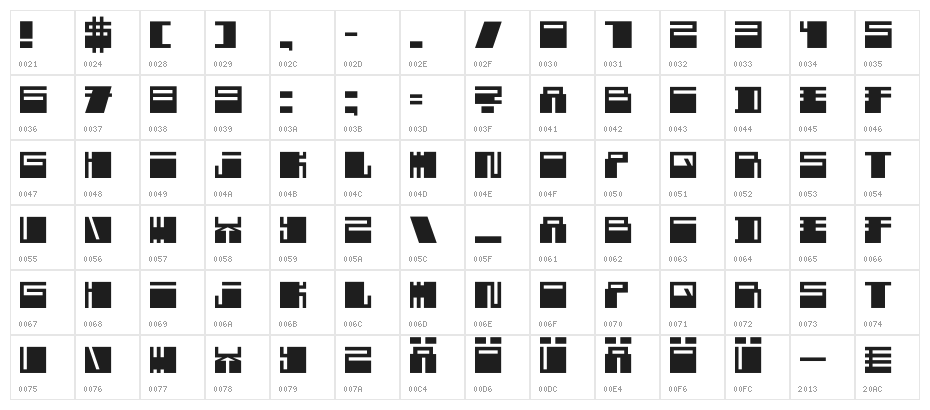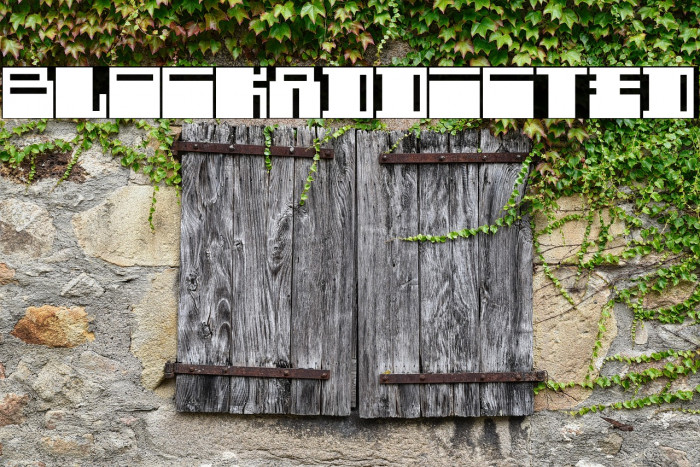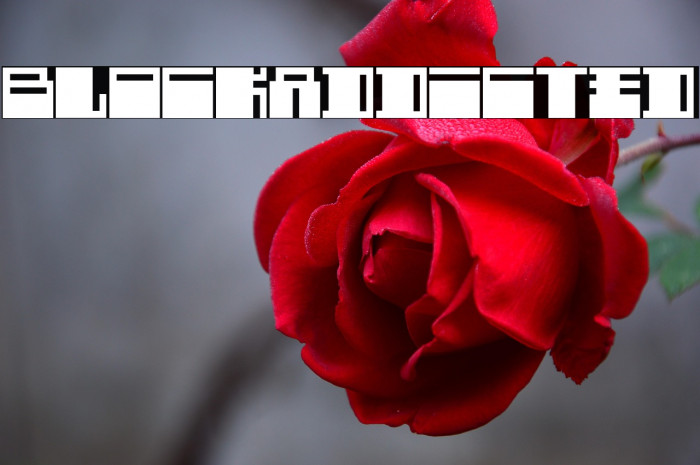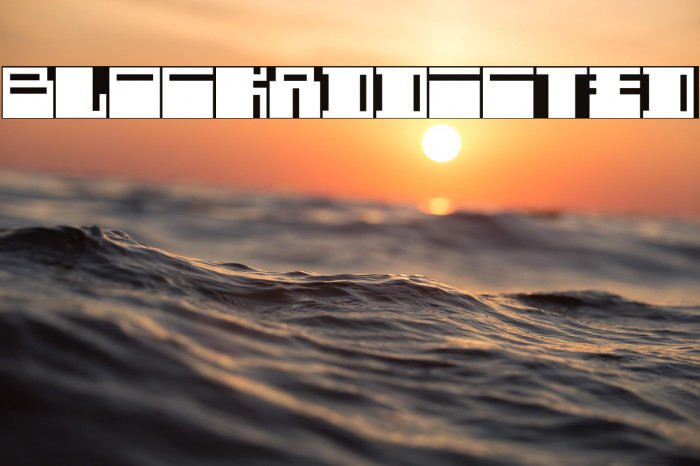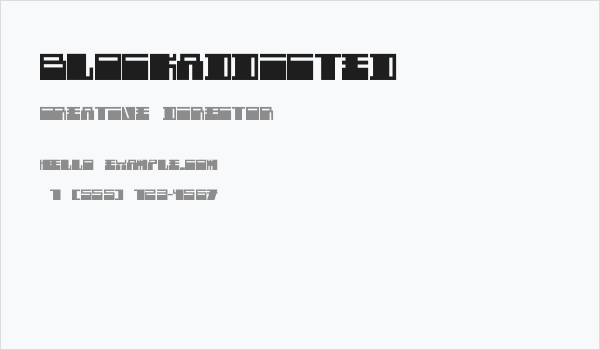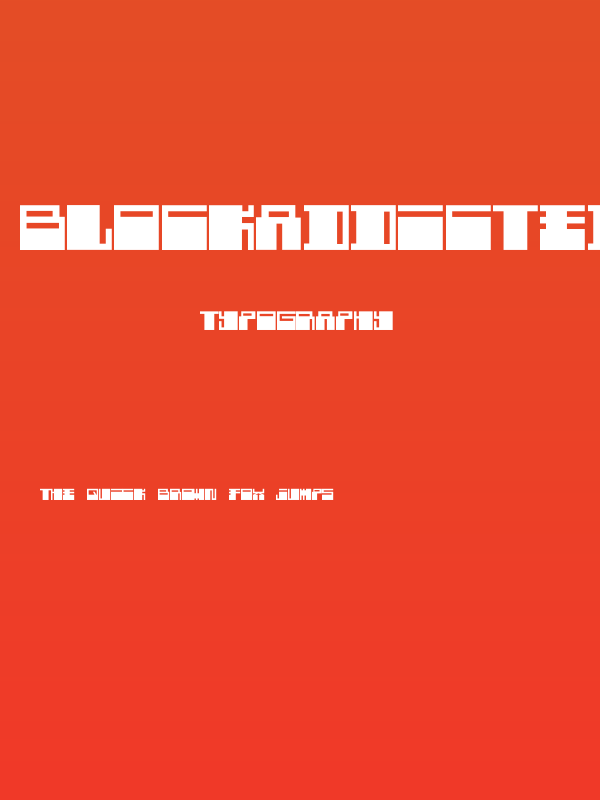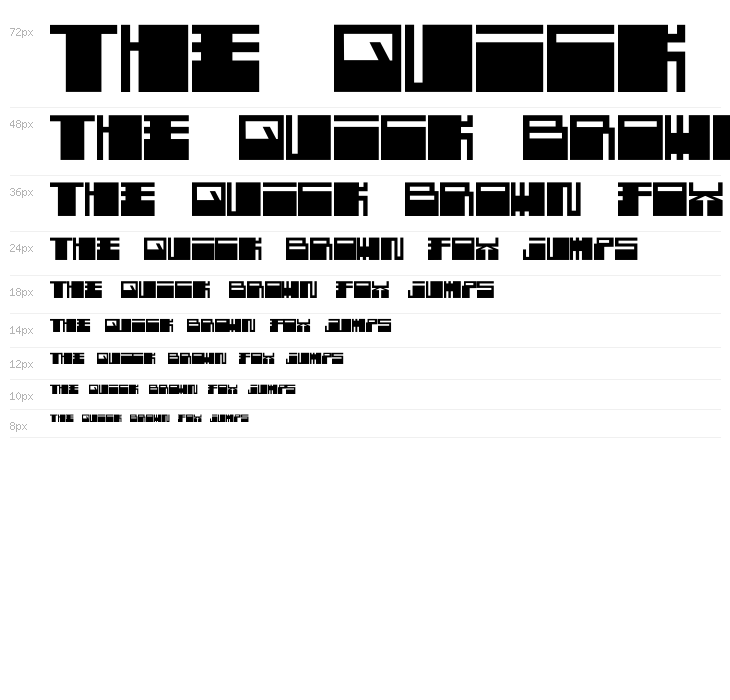
BlockAddicted Font
BlockAddicted Description
This font features a bold, geometric design with a distinctly modern and digital aesthetic. Each character is constructed from solid, block-like shapes, giving it a strong and impactful presence. The uppercase and lowercase letters maintain a consistent height, enhancing its uniformity and making it ideal for attention-grabbing headlines. The numerals and special characters follow the same blocky style, ensuring visual coherence across all elements. The font's angular and edgy appearance makes it suitable for projects that require a futuristic or tech-inspired look.
| Proposed Projects | Ideal for tech-themed designs, video game graphics, posters, and branding that requires a futuristic edge. |